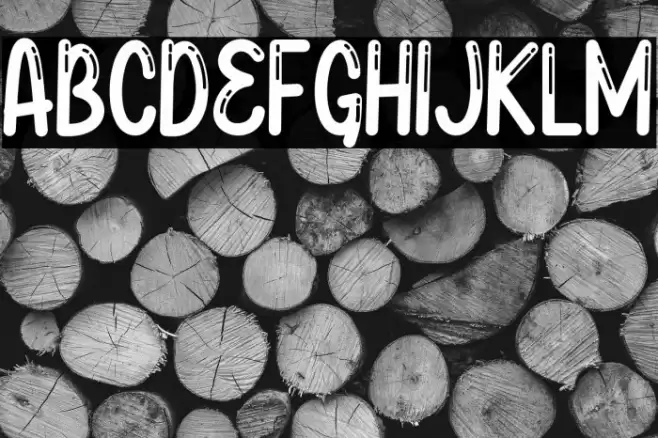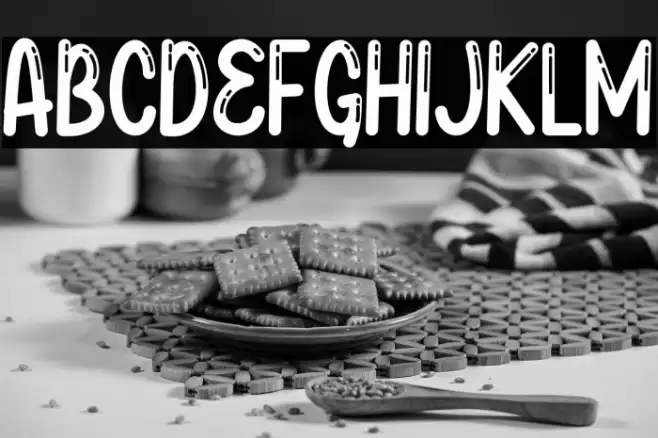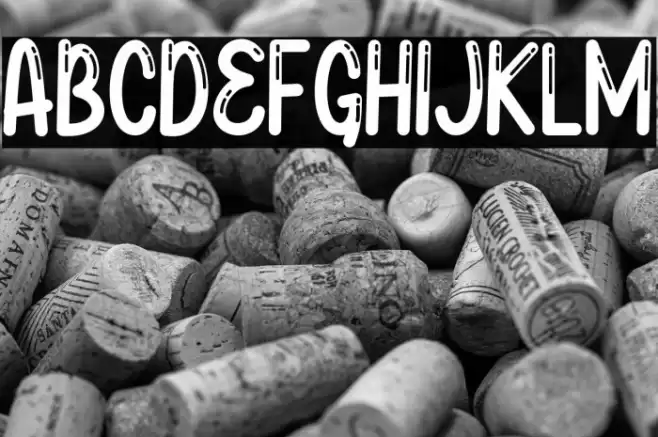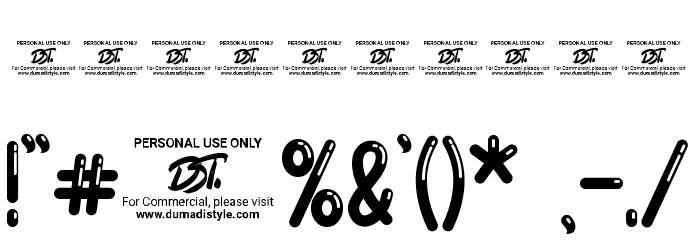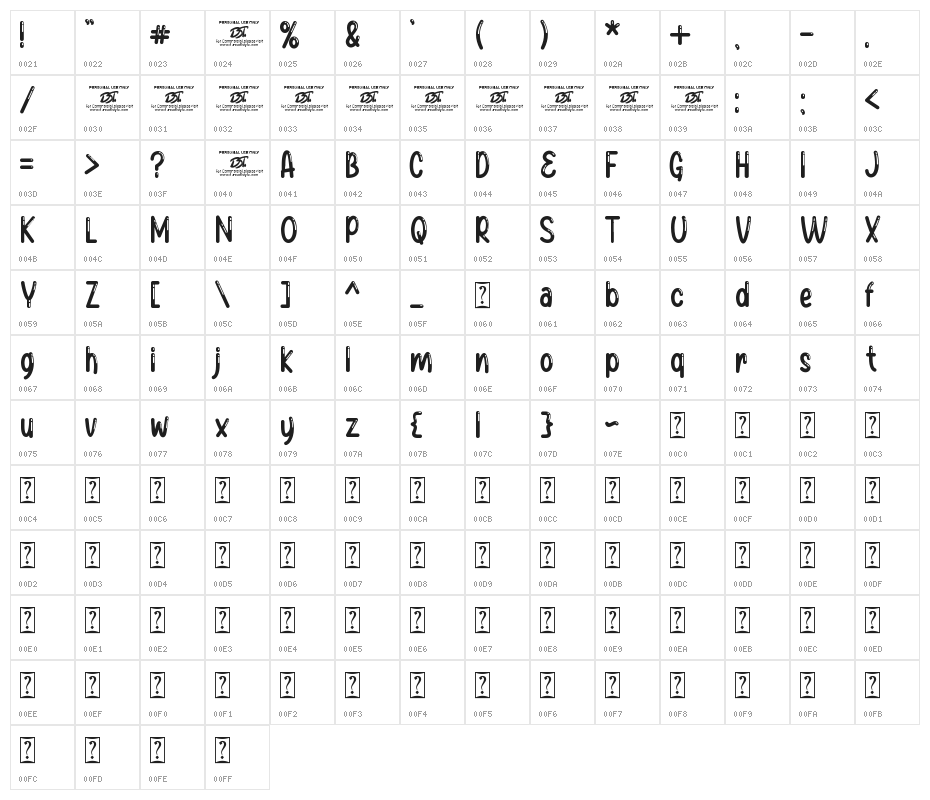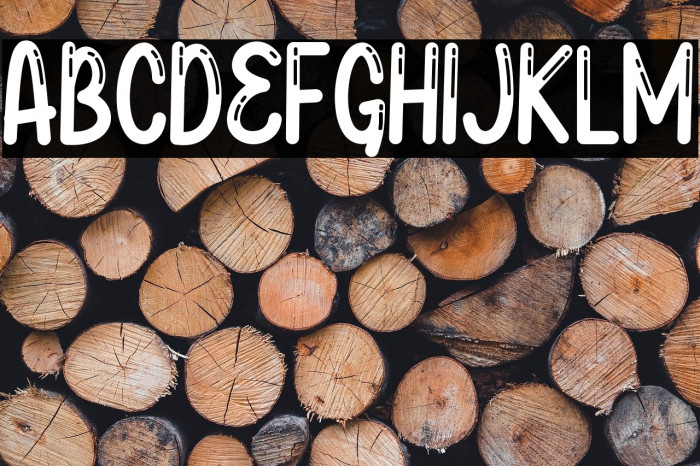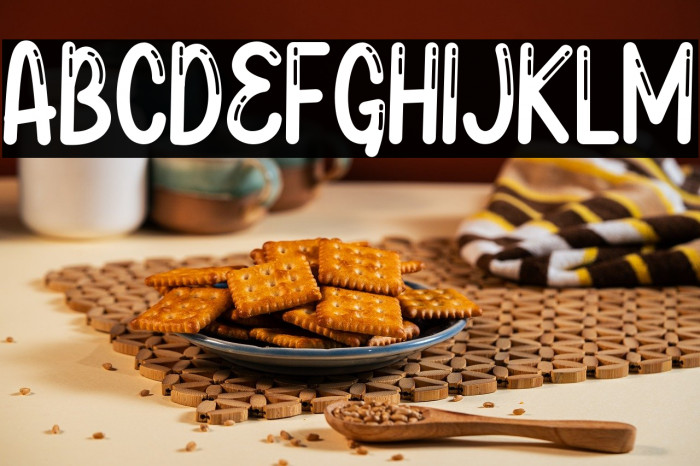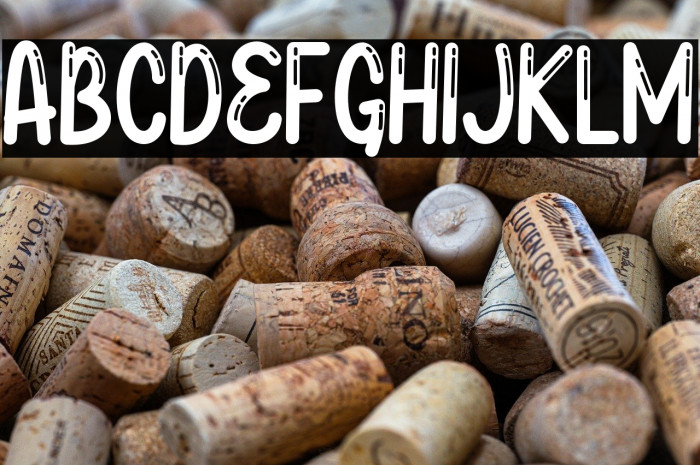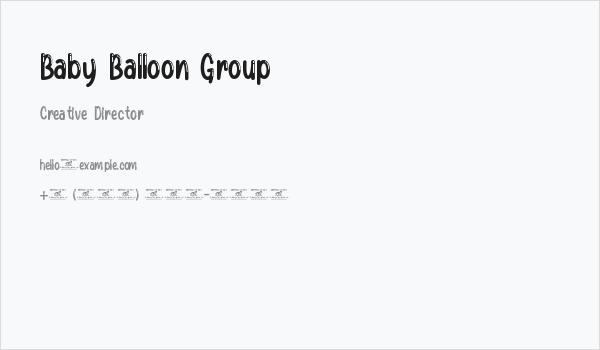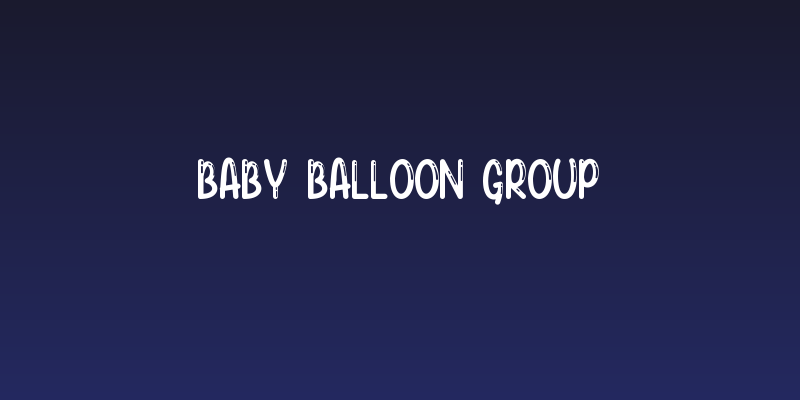
Baby Balloon Group Font
Baby Balloon Group Description
This playful and whimsical font features a balloon-like appearance with rounded, bubbly letters. The uppercase and lowercase characters maintain a consistent, inflated style that adds a sense of fun and lightheartedness. The font includes a full set of uppercase and lowercase letters, numbers, and a variety of special characters. Its bold and friendly design makes it ideal for projects that require a touch of joy and creativity. The strokes are consistent in width, giving it a uniform look, while the rounded edges enhance its approachable and childlike charm.
A playful, balloon-like font with rounded, bubbly letters from Uncategorized fonts.
- Font: Baby Balloon Group
- Proposed Projects: Ideal for children's books, party invitations, playful branding, and greeting cards.
- Overall Style: Playful